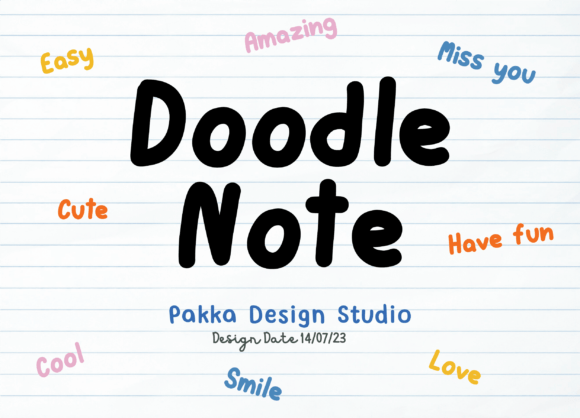
Doodle Note Font: Adding a Touch of Whimsy to Your Designs
In the world of typography, fonts play a crucial role in conveying the tone and personality of a design. One font that has gained popularity in recent times is the Doodle Note Font, a cute and bold doodle-style font that blends the charm of doodles with the strong presence of bold letters. In this article, we’ll explore the features and benefits of this font, and how it can add a touch of whimsy to your designs.
What is Doodle Note Font?
The Doodle Note Font is a unique and playful font that captures the essence of jotting down quick notes or sketches in a pocket-sized notebook. Each character appears as if hand-drawn with cute and whimsical details, creating a lively and aesthetic appeal. The font’s design is reminiscent of creative ideas and memorable moments on the go, making it perfect for pocket note-themed projects, stationery, or anything that aims to evoke a fun and delightful pocket-sized vibe.
Features of Doodle Note Font
The Doodle Note Font has several features that make it stand out from other fonts:
- Cute and Whimsical Design: The font’s hand-drawn design gives it a unique and playful look, making it perfect for designs that require a touch of personality.
- Bold and Impactful: The font’s bold letters ensure that your message gets noticed, making it ideal for headings, titles, and emphasis text.
- Playful Aesthetic: The font’s doodle-style design creates a lively and playful aesthetic that is sure to engage your audience.
- Perfect for Pocket Note-Themed Projects: The font’s design is specifically tailored for pocket note-themed projects, making it a great choice for stationery, journals, and other paper crafts.
Benefits of Using Doodle Note Font
Using the Doodle Note Font in your designs can have several benefits:
- Adds Personality to Your Design: The font’s unique and playful design can add a touch of personality to your design, making it stand out from the crowd.
- Conveys Creativity and Spontaneity: The font’s doodle-style design conveys a sense of creativity and spontaneity, making it perfect for designs that require a playful and carefree vibe.
- Perfect for Engaging Audiences: The font’s playful aesthetic is sure to engage your audience, making it ideal for designs that require attention-grabbing text.
- Versatile: The font can be used for a variety of design projects, from stationery and journals to social media graphics and website headers.
How to Use Doodle Note Font in Your Designs
Using the Doodle Note Font in your designs is easy:
- Choose the Right Size and Color: Choose a size and color that suits your design, and make sure it complements your overall aesthetic.
- Experiment with Different Text Styles: Experiment with different text styles, such as bold, italic, and underline, to add emphasis and create visual interest.
- Pair with Other Fonts: Pair the Doodle Note Font with other fonts to create a unique and visually appealing combination.
Tips and Tricks for Using Doodle Note Font
Here are some tips and tricks for using the Doodle Note Font in your designs:
- Use for Headings and Titles: Use the font for headings and titles to add a touch of personality and emphasis.
- Mix with Other Fonts: Mix the font with other fonts to create a unique and visually appealing combination.
- Experiment with Colors: Experiment with different colors to find the perfect combination that suits your design.
- Use for Social Media Graphics: Use the font for social media graphics to add a touch of personality and whimsy.
The Doodle Note Font is a unique and playful font that can add a touch of whimsy to your designs. With its cute and bold appearance, it’s perfect for pocket note-themed projects, stationery, and anything that aims to evoke a fun and delightful pocket-sized vibe. By following the tips and tricks outlined in this article, you can make the most of this font and create designs that are engaging, creative, and visually appealing.
- What is the Doodle Note Font?: The Doodle Note Font is a cute and bold doodle-style font that blends the charm of doodles with the strong presence of bold letters.